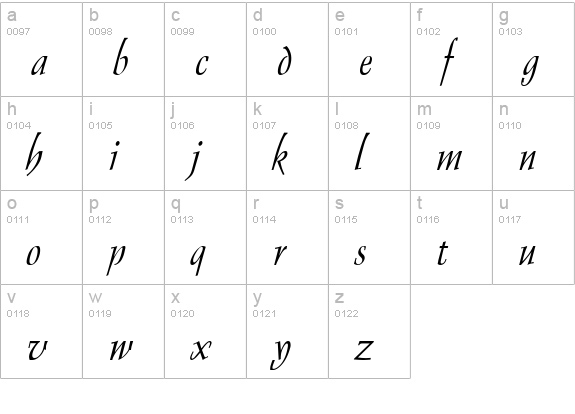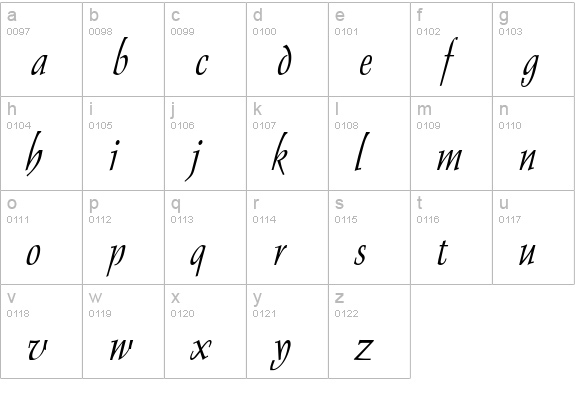
Dolphin Condensed Italic is a distinctive, condensed-width, italic variant in the Dolphin typeface family \xE2\x80\x94 well suited to design and typography projects.
Dolphin Condensed Italic is a sleek and sophisticated font that exudes elegance and modernity. Its italicized design adds a touch of flair and style, making it perfect for a wide range of design projects. The slim and condensed letterforms of Dolphin Condensed Italic create a sense of streamlined beauty, making it ideal for headings, titles, and branding materials. This versatile font is free to download at FontsMarket.com, allowing designers and creatives to easily access and utilize its unique character and charm in their projects. Whether used in print or digital media, Dolphin Condensed Italic is sure to make a bold statement and leave a lasting impression. Elevate your designs with this free and stylish font today!